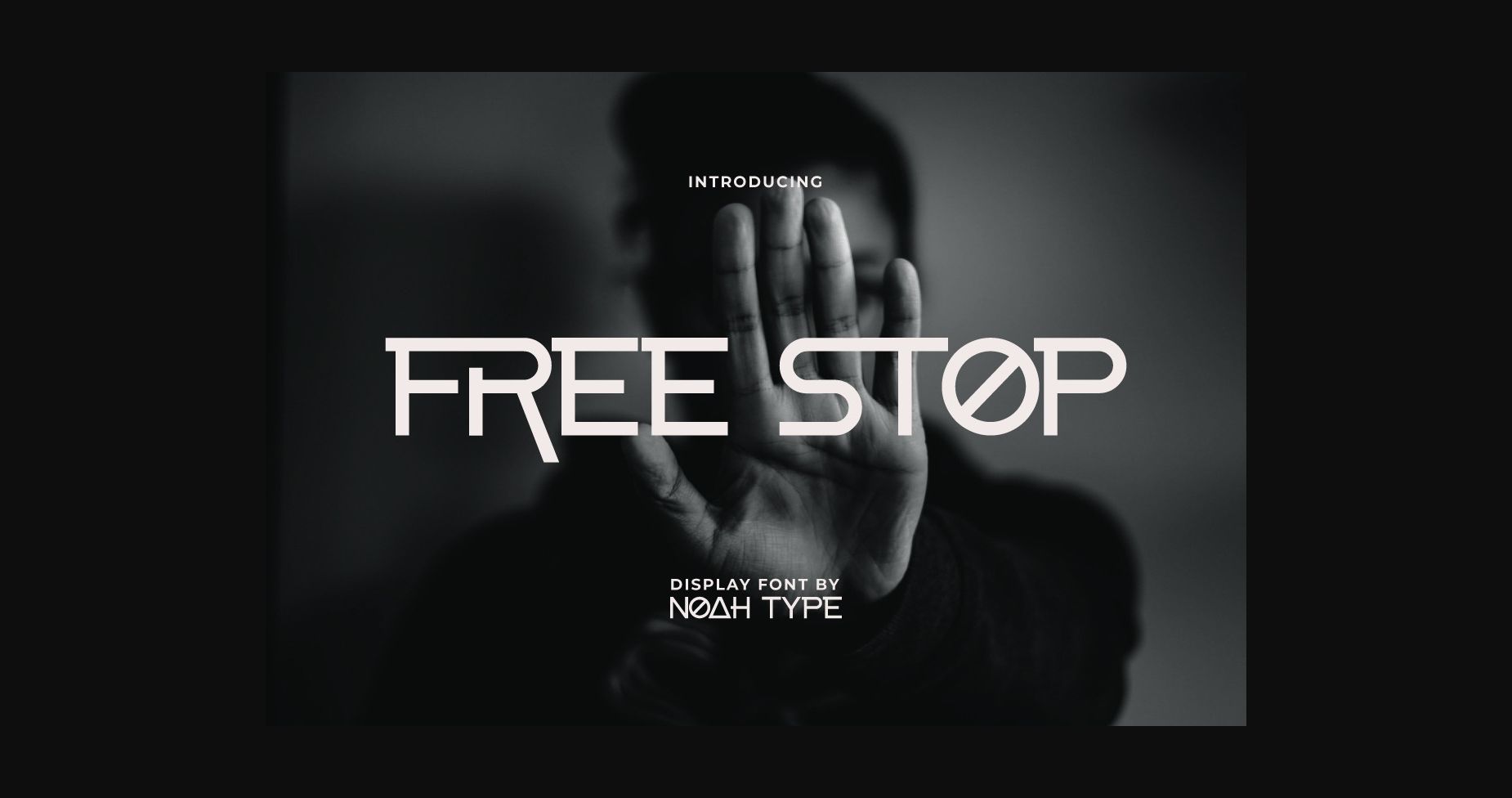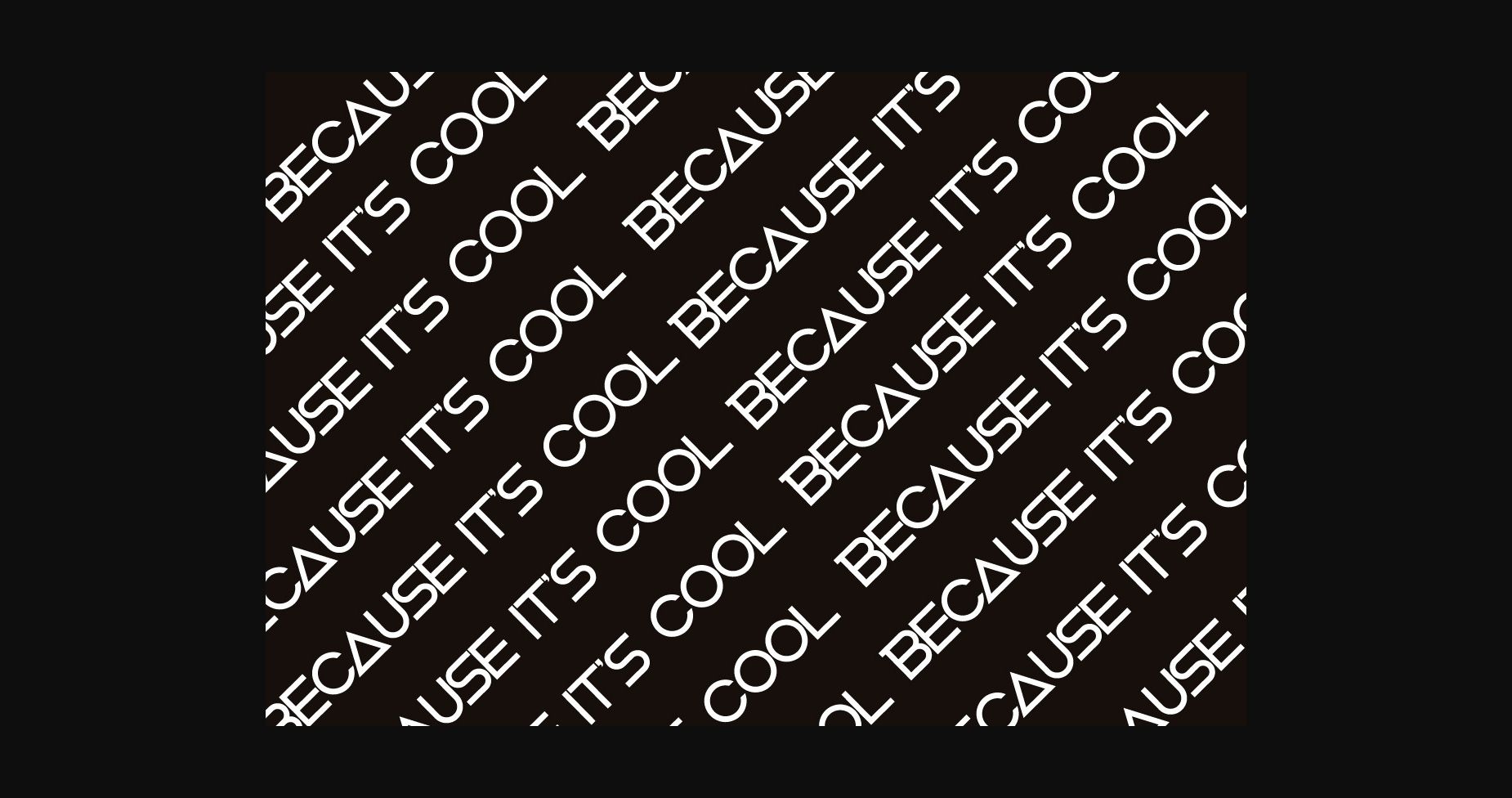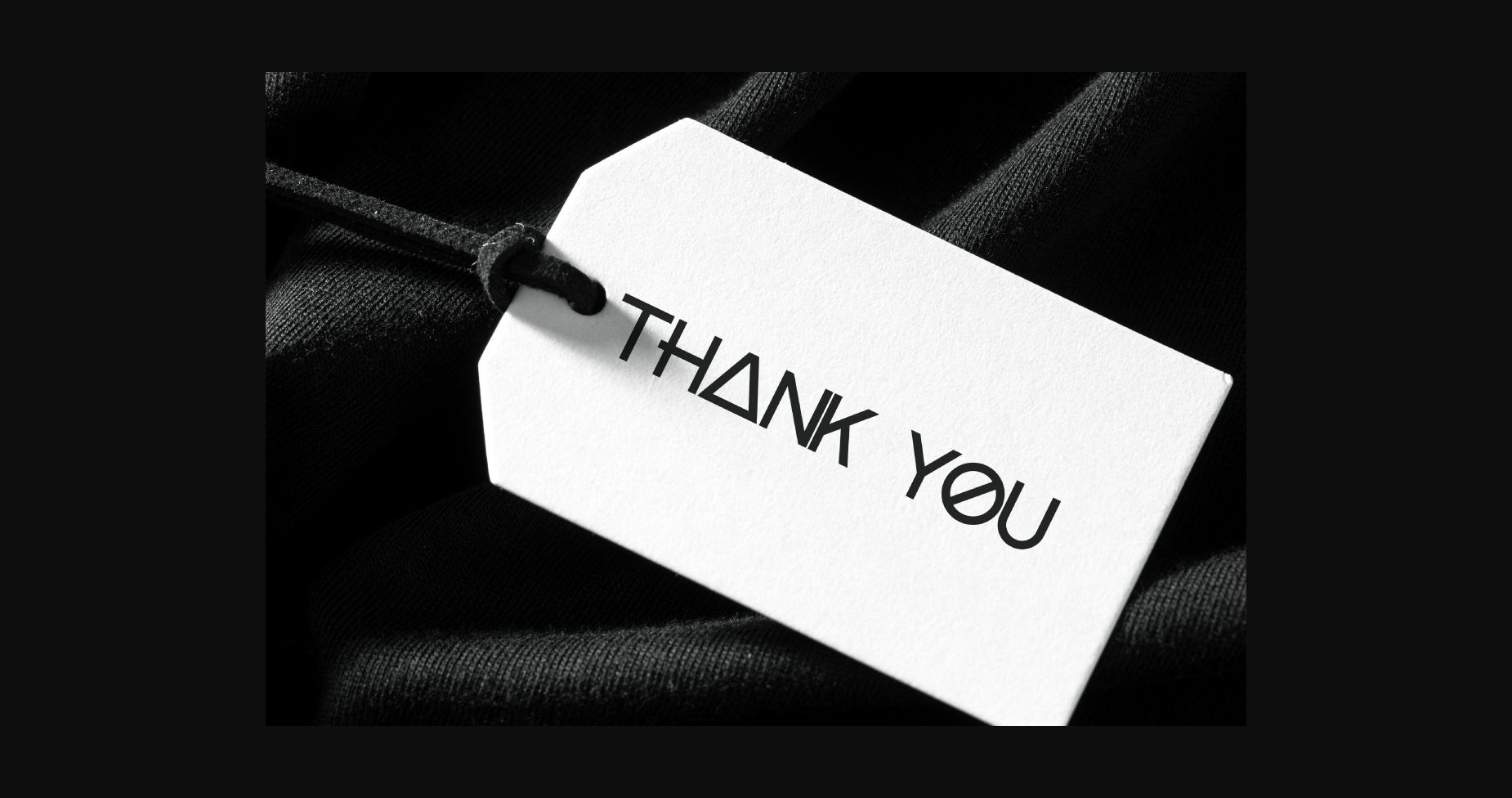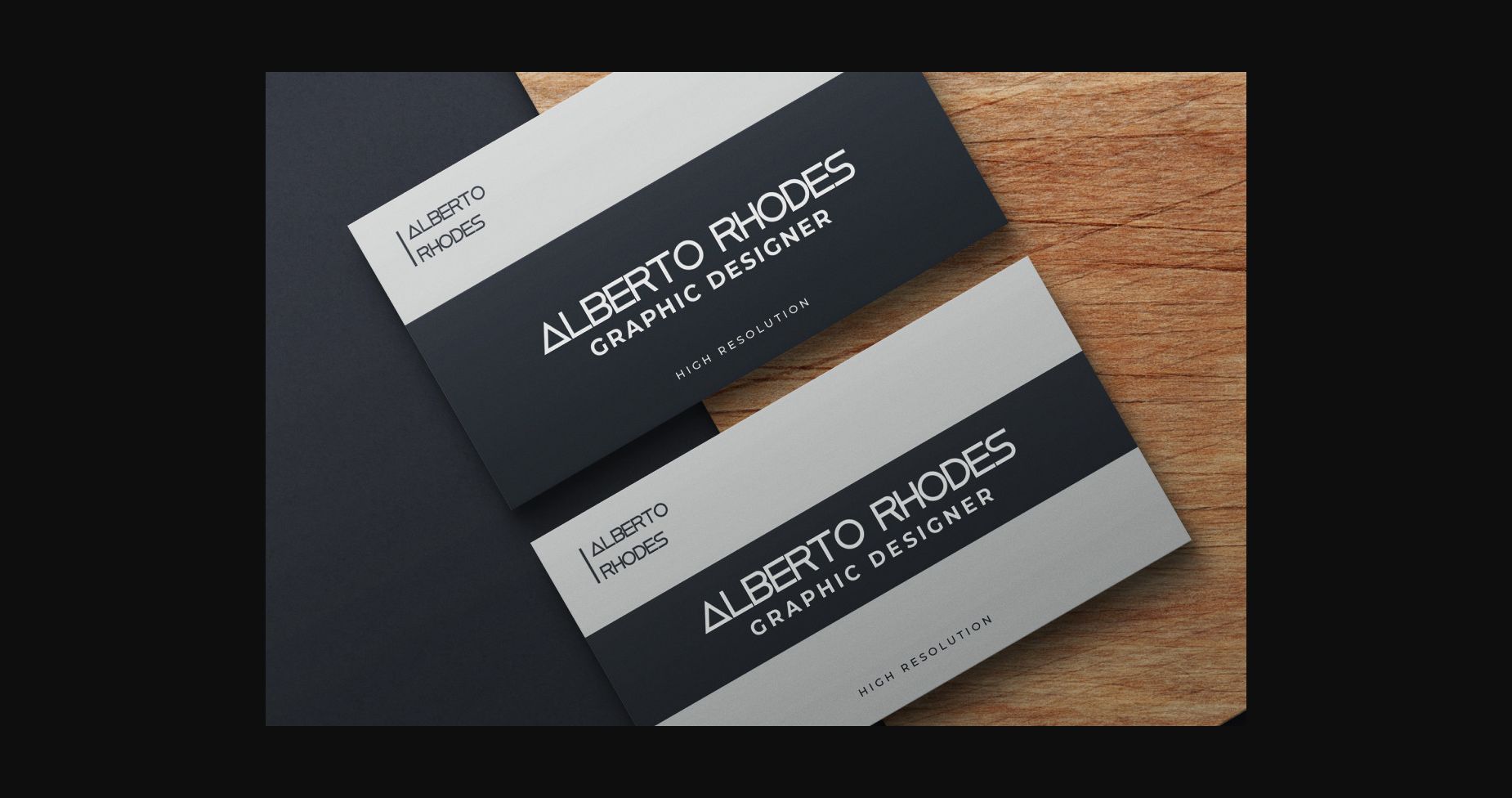
About FreeStop Font
FreeStop is a unique and modern sans serif font with awesome style characters. It has a unique style that will bring a special effect to your creative ideas. This font works great for games, technology, events, headlines, logos, posters, titles, product packaging, etc.